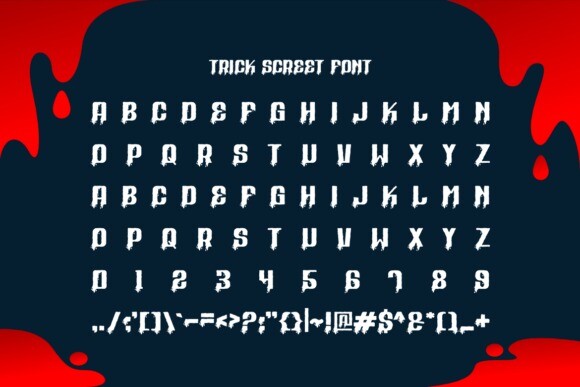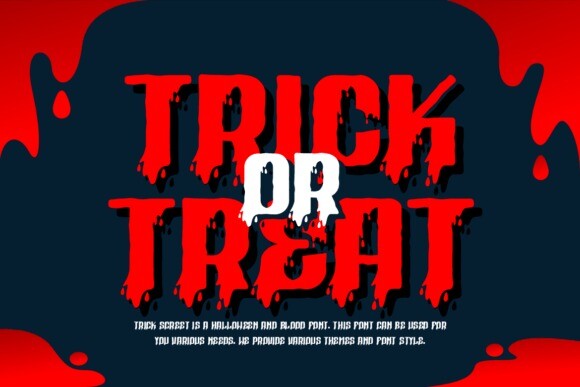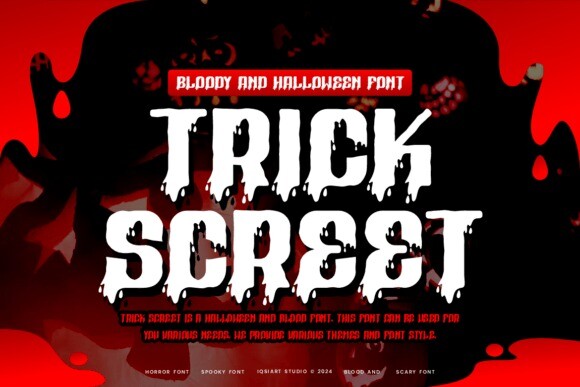
Trick Screet Font
Designer: IqsiartStudio
Trick Screet Font is a spooky, decorative font where the letters look like they’re dripping with blood. Its eerie style makes it perfect for Halloween or anything scary!